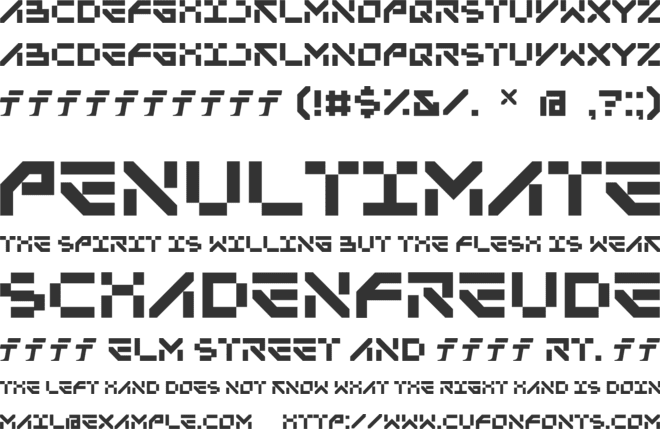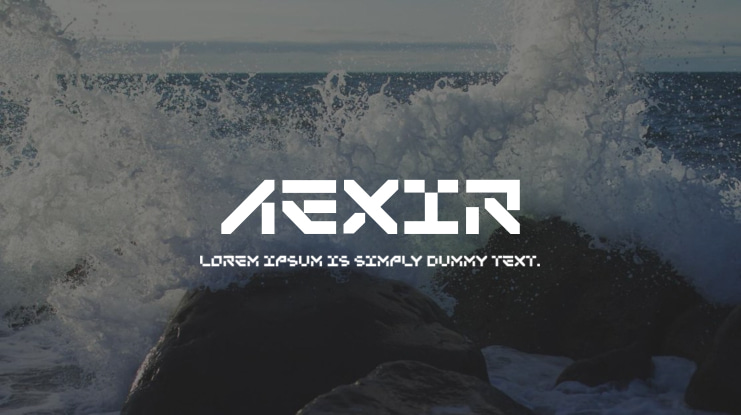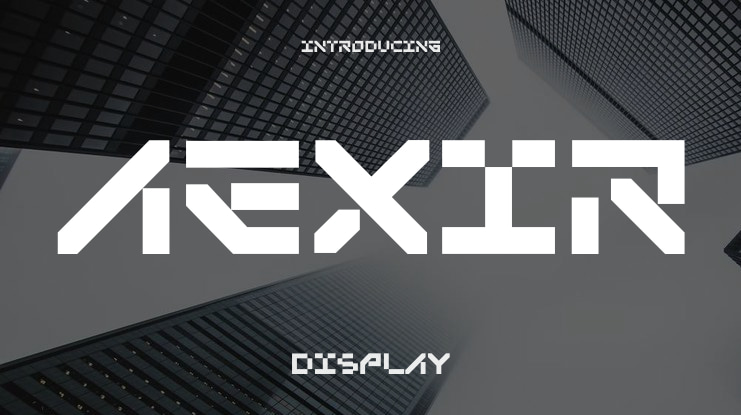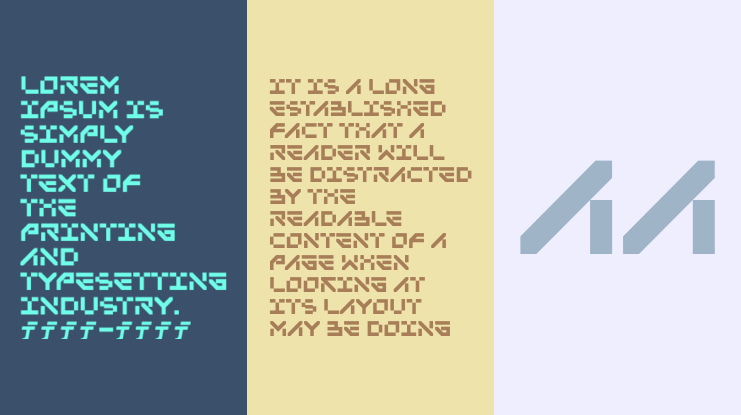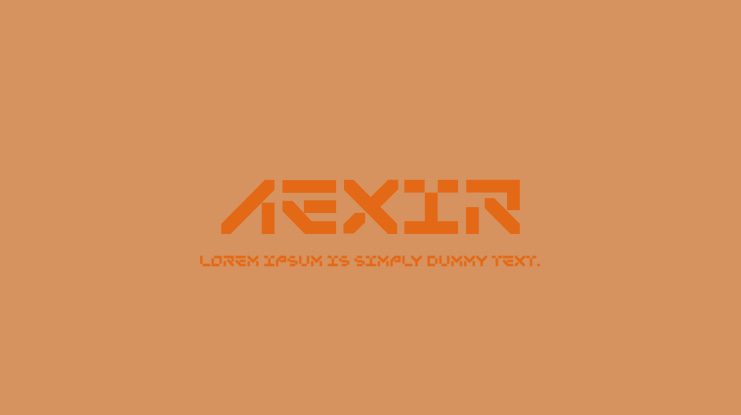
Discover the cutting-edge world of typography with Aexir - a font that captures the essence of cyberpunk style and contemporary design. Aexir's sleek lines and futuristic feel offer a perfect combination of fashion and functionality, making it ideal for a variety of digital and print projects.
With a selection of six distinctive styles, including regular, condensed, and extended variations, Aexir provides unmatched versatility for your creative endeavors. Each style comes with its own alternative typefaces, allowing for effortless experimentation and customization.
Whether you're crafting digital interfaces, print materials, or gaming graphics, Aexir stands out as the ultimate choice for projects requiring a modern aesthetic. Its cyberpunk-inspired design brings a touch of innovation and technology to any application, making it a perfect fit for gaming content and futuristic themes.